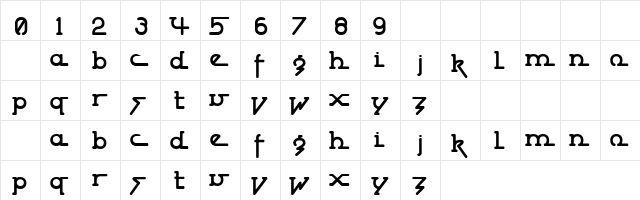
Wire Worx Regular
Design Context for Wire Worx Typeface
Wire Worx offers clean, dependable letterforms without strong stylistic allegiance, making it a practical choice for designers who need flexibility.